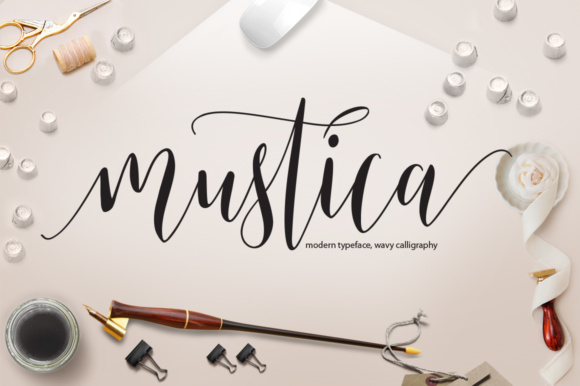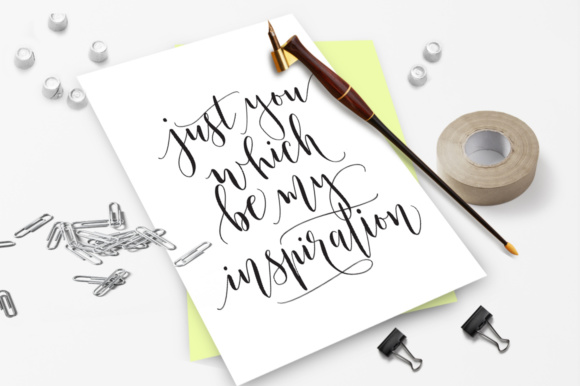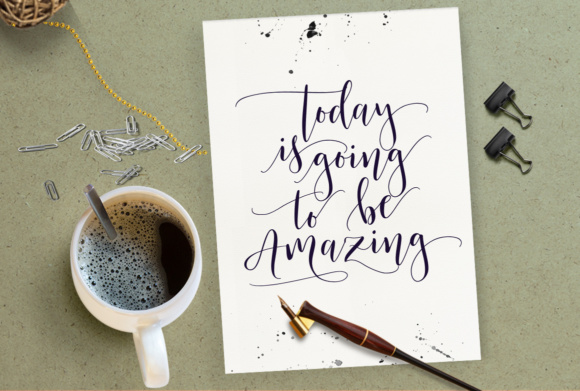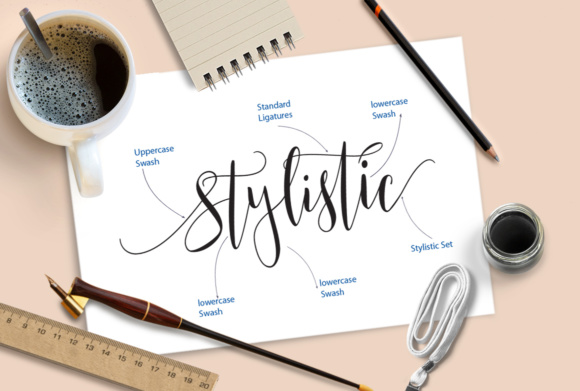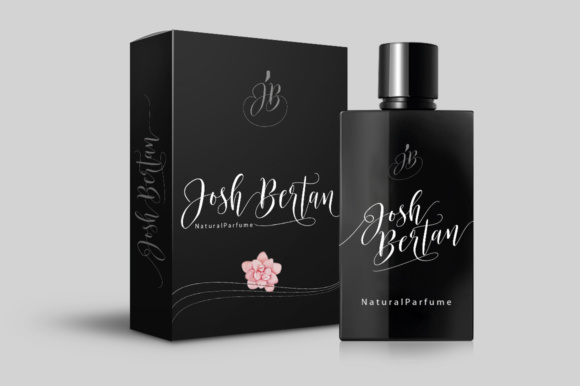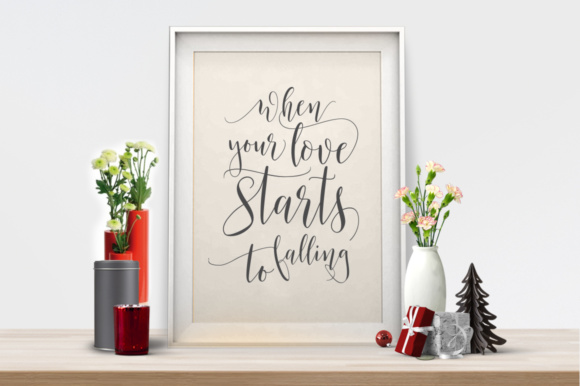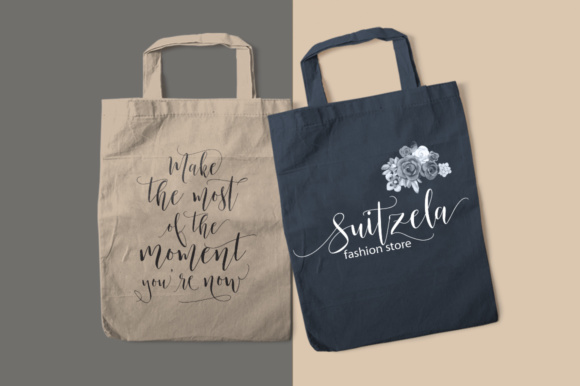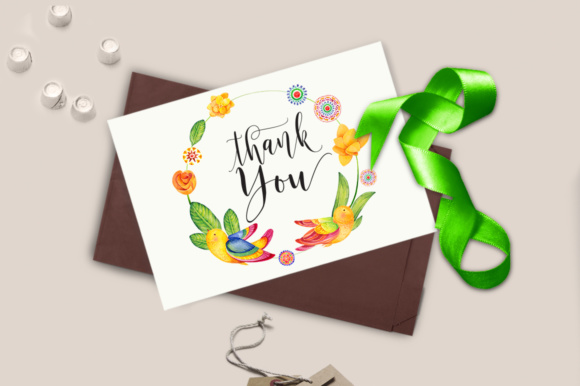
HomeScript FontsMustica Script Font Script Fonts Mustica Script Font FacebookXPinterestWhatsApp Mustica Script Font Poster 2 Mustica Script Font Poster 3 Mustica Script Font Poster 4 Mustica Script Font Poster 5 Mustica Script Font Poster 6 Mustica Script Font Poster 7 Mustica Script Font Poster 8 About Mustica Script Font Mustica Script is a calligraphy typeface with a modern and classic look. Perfect for your next design! DOWNLOAD NOW People also explored Karena Font Syamilla Marttine Font Nueve Extra Bold Font Our Beloved Lf Font Pinecone Font Shaqilla Font Blayer Charles Font Montana Elladinor Font Vaguard Font 486 0 TagsMustica Script Font Previous articleBarme Reczny FontNext articleHarista Script Font LEAVE A REPLY Cancel reply Comment: Please enter your comment! Name:* Please enter your name here Email:* You have entered an incorrect email address! Please enter your email address here Website: Save my name, email, and website in this browser for the next time I comment. Personal Use Free Propaniac Personal Use Free Read more about this font Heartburn Personal Use Free Read more about this font Party Pooper Personal Use Free Read more about this font Lightning Script Personal Use Free Read more about this font BLOG Best Fonts for T-Shirt Design – Top 2025 Picks In 2025, t-shirt design has become more than just fashion—it's a form of self-expression. Whether you're... To increase your work productivity, choose the most readable fonts. Top 10 Handwritten Fonts That Elevate Your Designs Top 7 Google Fonts Alternatives for Faster and Privacy-Friendly Web Design (2025)